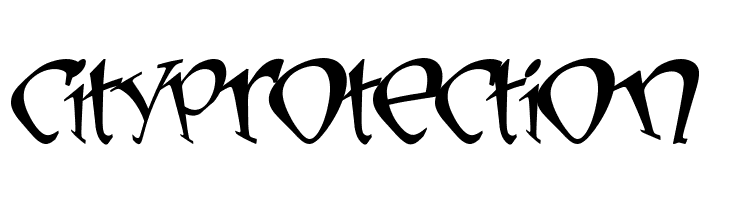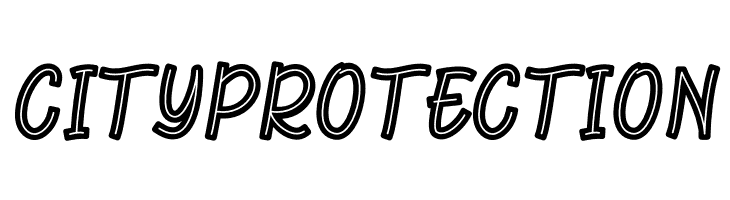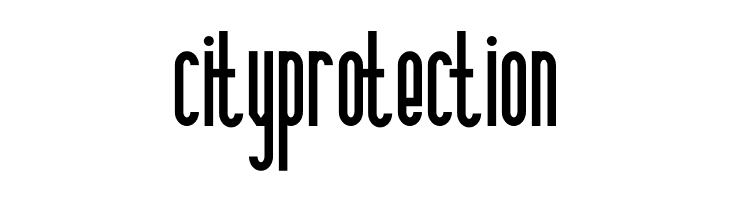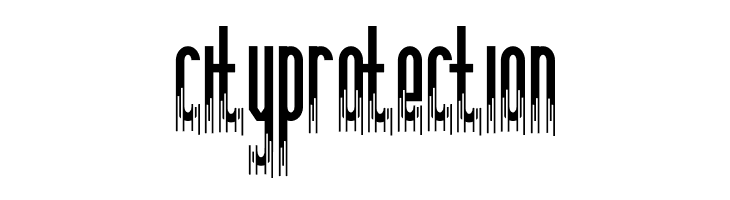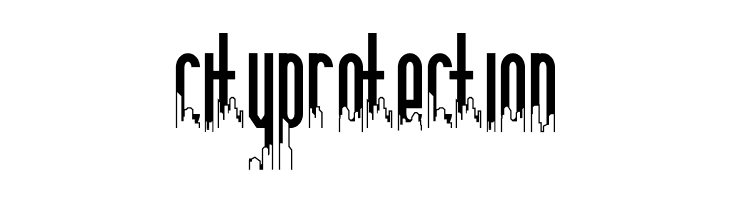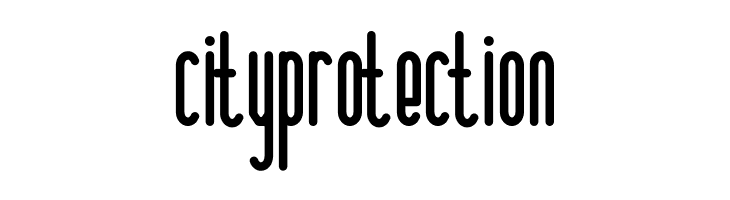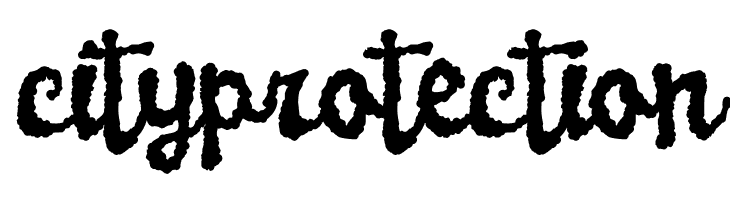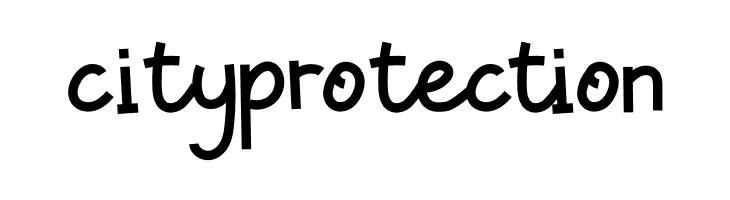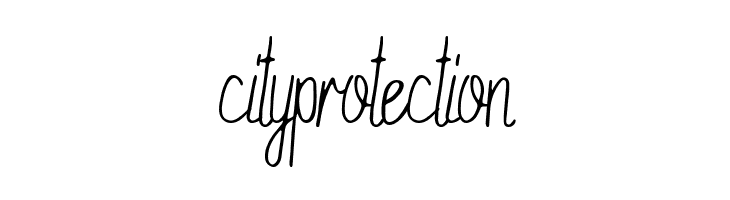
A playful, handwritten font with rounded, casual letterforms.
A bold, geometric font with a modern, industrial style.
A bold, modern font with rounded edges and a slightly condensed form.
A bold, rounded font with a modern and impactful style.
A modern, slightly italicized font with smooth curves and consistent stroke width.
An elegant, flowing script font with interconnected letters and delicate flourishes.
An elegant script font with fluid, cursive strokes and a refined, handwritten style.
An elegant and flowing script font with decorative swashes and high contrast.
A classic and elegant script font with flowing, connected letterforms.
A graceful script font with smooth, connected strokes and a handwritten appearance.
A bold, playful handwritten font with textured, irregular strokes.
A bold, decorative font with high contrast and intricate details.
A graceful script font with flowing, interconnected letters and artistic flourishes.
A futuristic, geometric font with bold, angular letterforms.
A whimsical, gothic-inspired font with playful curves and sharp edges.
A bold, hand-drawn font with outlined characters and a playful style.
A tall, narrow, and modern condensed font with uniform stroke width.
A dynamic font with elongated vertical lines and a dripping effect.
A modern, skyline-inspired font with tall, narrow characters and high contrast.
A modern, rounded font with elongated, narrow letterforms and smooth curves.
A bold, textured, and playful font with a hand-drawn aesthetic.
A playful, handwritten font with bold, rounded strokes and a casual, friendly style.
A graceful and flowing script font with elegant cursive letters.
A playful, bold font with rounded, bubble-like characters.
An elegant script font with flowing, interconnected letters and graceful swashes.
A graceful handwritten font with fluid, continuous strokes.
An elegant and whimsical script font with flowing, delicate strokes.
A decorative font with elongated, dripping vertical lines for a dynamic look.
A sophisticated script font with flowing, cursive letterforms and elegant flourishes.